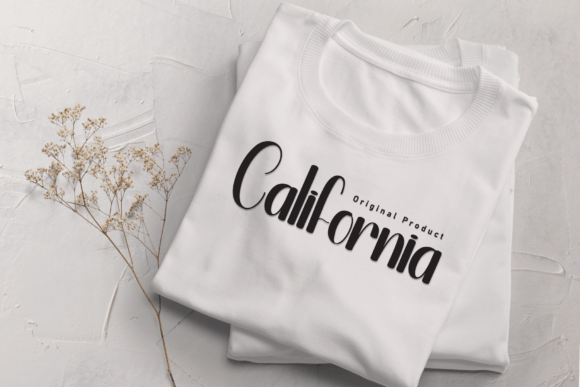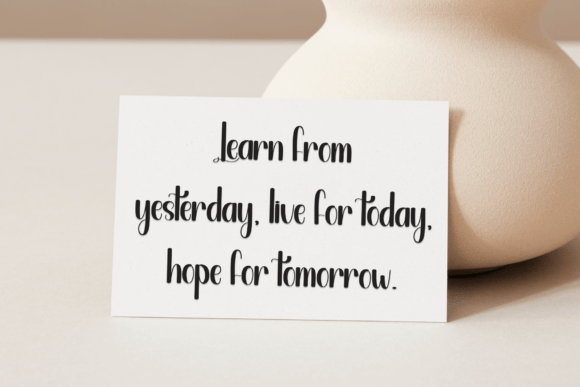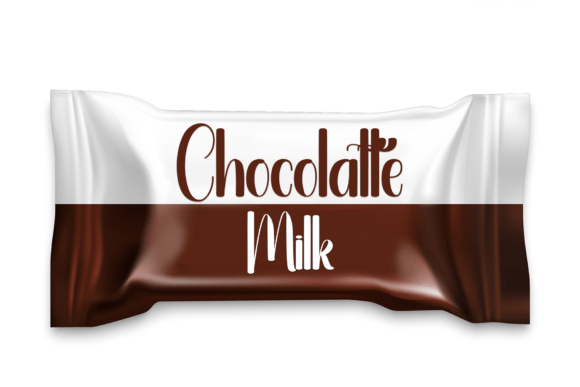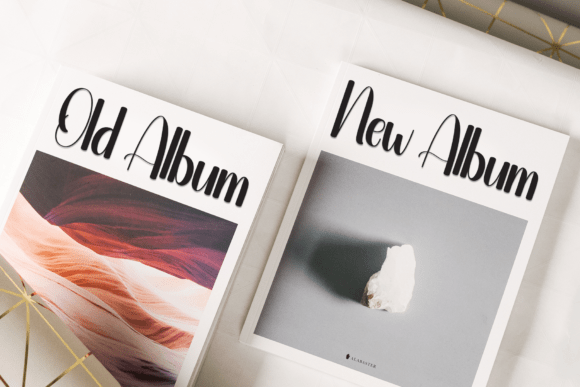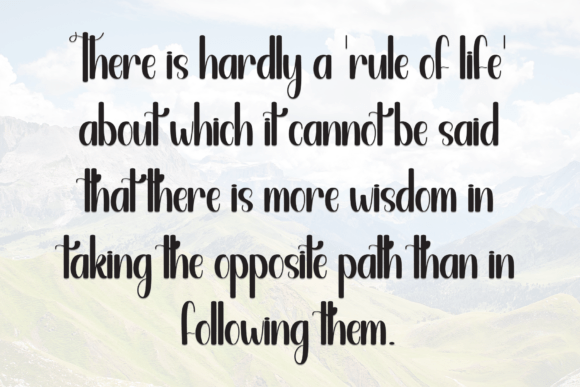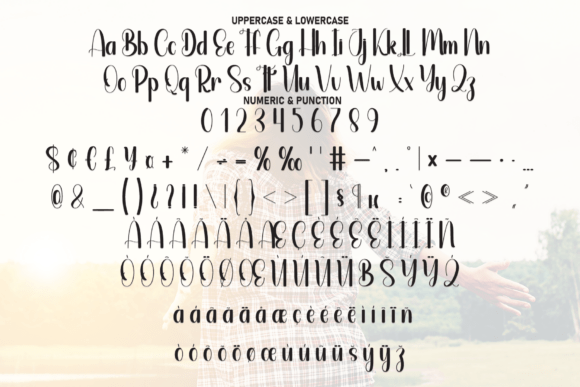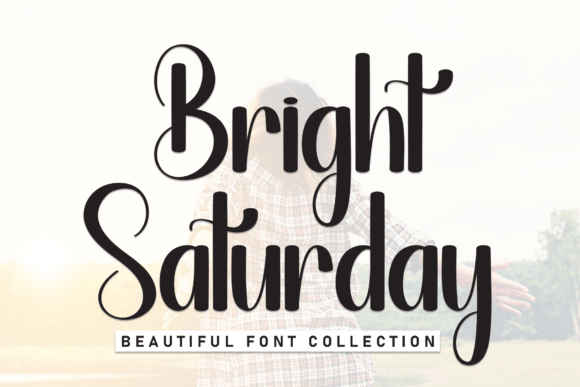
Introducing Bright Saturday: The Ultimate Stylish Handwritten Script Font
Are you tired of using the same old fonts for your designs and crafts? Look no further! Bright Saturday is a stunning handwritten script font that is sure to elevate your creative projects to the next level. With its elegant and playful strokes, this font is perfect for designers, crafters, and anyone looking to add a personal touch to their work.
The Characteristics of Bright Saturday
Bright Saturday is a beautifully crafted font that exudes sophistication and charm. Its flowing curves and natural rhythm give it a unique and organic feel, making it perfect for a variety of applications. Here are some of its key characteristics:
• Elegant and Playful Strokes: Bright Saturday’s strokes are both elegant and playful, making it perfect for designs that require a touch of sophistication and whimsy.
• Flowing Curves: The font’s flowing curves give it a natural and organic feel, making it perfect for designs that require a sense of movement and fluidity.
• Natural Rhythm: Bright Saturday’s natural rhythm makes it easy to read and understand, making it perfect for body text and headings.
Uses for Bright Saturday
Bright Saturday is a versatile font that can be used for a variety of applications, including:
• Invitations: Whether you’re planning a wedding, birthday party, or baby shower, Bright Saturday is the perfect font to add a personal touch to your invitations.
• Branding: Bright Saturday’s elegant and sophisticated design makes it perfect for branding and packaging design.
• Social Media: Add a touch of personality to your social media posts and stories with Bright Saturday.
• Stationery: Bright Saturday is perfect for designing custom stationery, including letterheads, business cards, and journals.
Why Choose Bright Saturday?
With so many fonts to choose from, why should you choose Bright Saturday? Here are just a few reasons:
• Unique and Creative: Bright Saturday is a unique and creative font that will set your designs apart from the rest.
• Easy to Read: Despite its elegant and playful design, Bright Saturday is easy to read and understand, making it perfect for body text and headings.
• Versatile: Bright Saturday can be used for a variety of applications, from invitations and branding to social media and stationery.
• High-Quality: Bright Saturday is a high-quality font that is designed to deliver exceptional results.
Tips for Using Bright Saturday
Here are a few tips for getting the most out of Bright Saturday:
• Pair it with Other Fonts: Bright Saturday pairs well with other fonts, including sans-serif and serif fonts.
• Experiment with Colors: Bright Saturday looks great in a variety of colors, from bold and bright to soft and pastel.
• Use it for Headings and Body Text: Bright Saturday is perfect for both headings and body text, making it a versatile font for any design project.
Bright Saturday is a stylish handwritten script font that is sure to elevate your designs and crafts to the next level. With its elegant and playful strokes, flowing curves, and natural rhythm, it’s perfect for a variety of applications, from invitations and branding to social media and stationery. Whether you’re a designer, crafter, or simply someone looking to add a personal touch to your work, Bright Saturday is the perfect font for you.